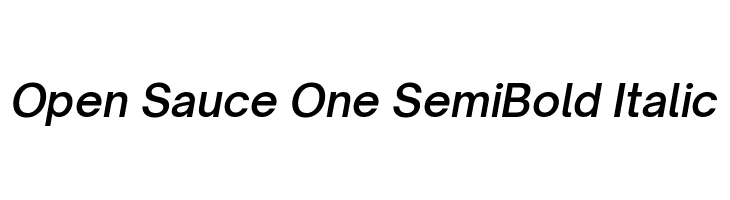
A modern, geometric sans-serif font with uniform stroke widths.
A modern, medium-weight, italic sans-serif font with a clean and dynamic style.
A modern, geometric sans-serif font with clean lines and balanced proportions.
A modern, semi-bold sans-serif font with clean lines and balanced proportions.
A modern, semi-bold italic sans-serif font with a sleek design.